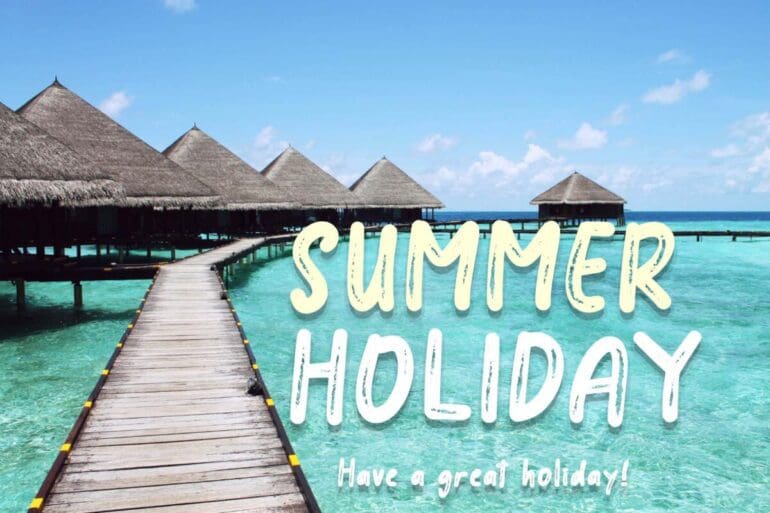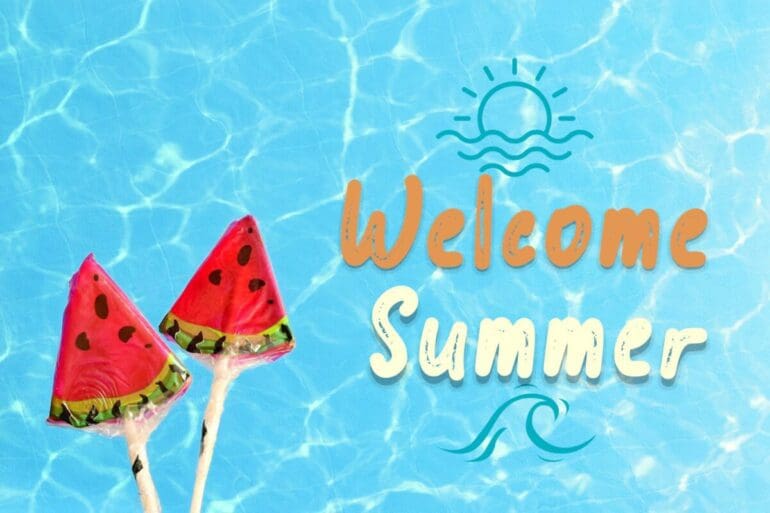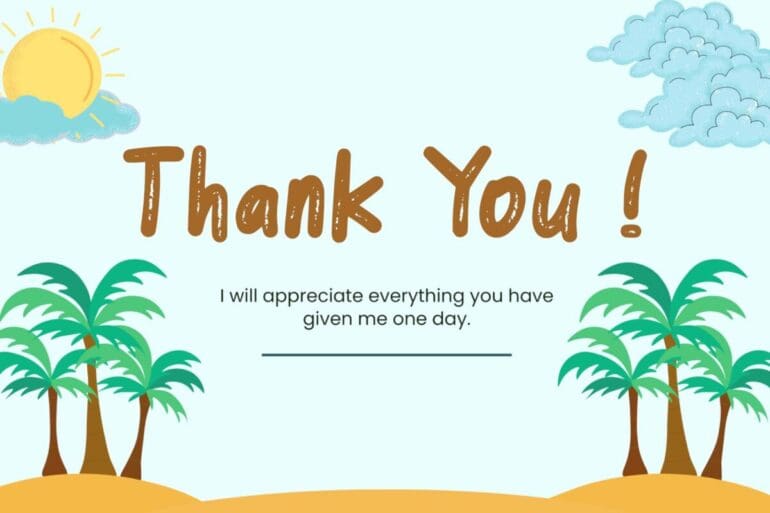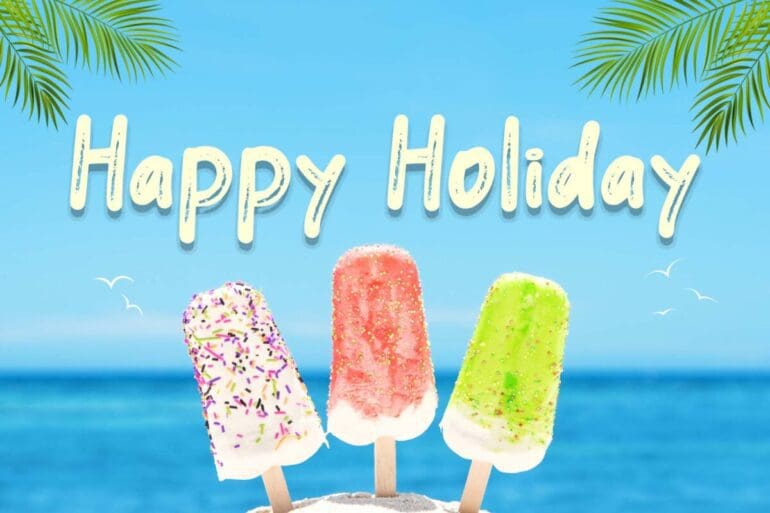
Summer Island Font
Summer Island is a unique brush font with a youthful spirit. This font is equipped with uppercase, lowercase, numerals, multilingual support, and punctuation. Very suitable for stickers, banners, posters, social media, summer, spring, teacher, back to school, Father’s Day, Mother’s Day, and others.